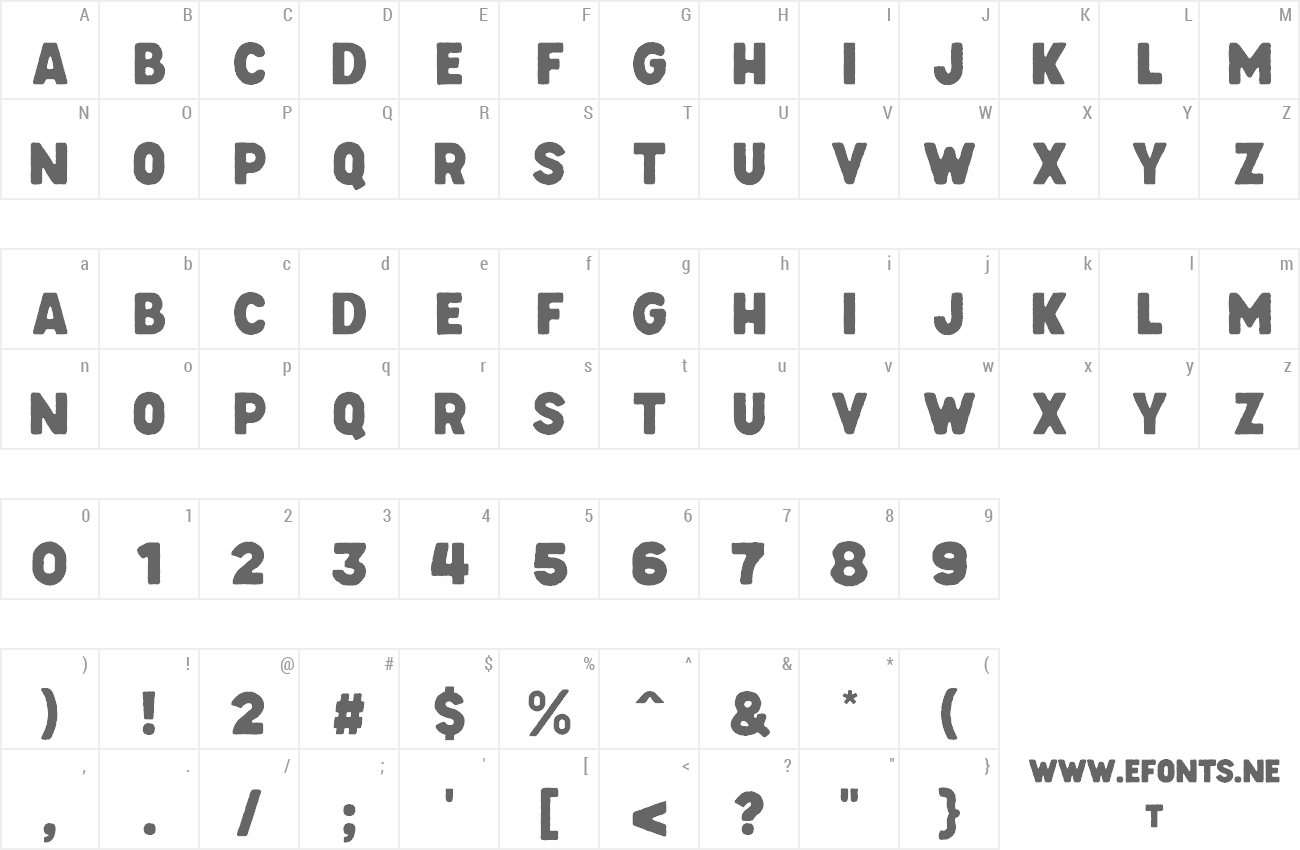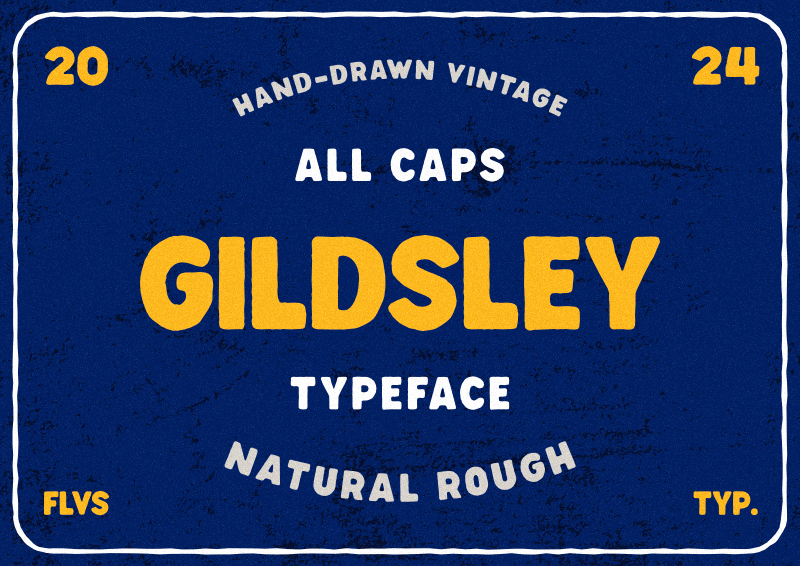
Preview and download Gildsley Font. Created by Floves Type in Fancy Eroded styles with Demo license.
Introducing Gildsley, a Sans Serif font exuding Rough Vintage Style. This versatile typeface is perfect for adding a nostalgic touch to a wide range of design projects. Gildsley is an bold all caps typeface character set renowned for its versatility. Craft vintage-inspired logos, labels, posters, and signage with its bold uppercase letters glyphs. Whether you're creating branding materials for a retro-themed event or designing eye-catching merchandise. ━━━━━━━━━━━━━━━━━━━━━━━━━━━━━━━━ Thank you for expressing interest in the Gildsley � Rough Vintage Font. THIS FONT IS SOLELY FOR DEMONSTRATION, TYPE TESTING, OR NON-PROFITABLE PROJECTS. COMMERCIAL USAGE REQUIRES A VALID PURCHASE LICENSE. BY INSTALLING OR USING OUR FONTS, YOU CONSENT TO OUR TERMS AND CONDITIONS, AND INFRINGEMENT OF OUR FONT USAGE IS A VIOLATION OF OUR COPYRIGHT THAT WE TAKE SERIOUSLY. PLEASE NOTE, THAT COPYRIGHT INFRINGEMENT OR MISUSE OF THE LICENSE WITHOUT PERMISSION MAY RESULT IN A PENALTY OF $100K OR MORE. IN THE EVENT THAT YOU DISAGREE WITH OUR TERMS, PLEASE IMMEDIATELY CEASE USING OUR FONTS AND DESTROY ALL COPIES. WE HIGHLY RECOMMEND THAT YOU OBTAIN THE APPROPRIATE LICENSE AND AVOID ANY INFRINGEMENT OR MISUSE OF OUR FONTS. YOUR COOPERATION AND ADHERENCE TO OUR FONT USAGE POLICY ARE APPRECIATED, AND WE REMIND YOU THAT IGNORANCE OF OUR TERMS DOES NOT EXCUSE ANY VIOLATIONS OF THE LAW OR AGREEMENT. ▬▬▬▬▬▬▬▬▬▬▬▬▬▬▬▬▬▬▬▬▬▬ More... |